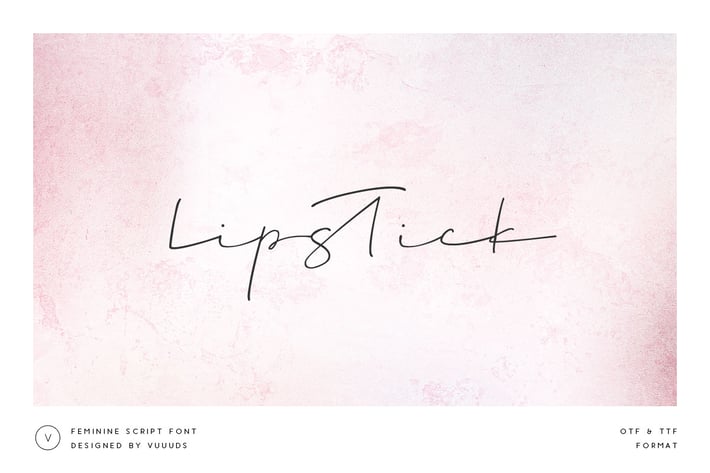
Lisptick Font
Lipstick is modern feminine font, every single letters have been carefully crafted to make your text looks beautiful. With modern script style this font will perfect for many different project ex: Instagram post, signature logo, watermark, quote, blog header, poster, wedding, branding, logo, fashion, apparel, letter, invitation, stationery, etc.
Ligature & alternate glyph: a ab af ah ak al all at att bl ch ck db eb eh ek el ell em en et ett es ft g gh i ib if ih ik il ill is it itt nt o ob of oh ok ol ot pl pp s sh sk sl ss st u ub uf uh uk ul ut wh
Foreign languages support: ÀÁÂÃÄÅÆÇÈÉÊËÌÍÎÏÐÑÒÓÔÕÖØÙÚÛÜÝßàáâãäåæçèéêëìíîïðñòóôõöøùúûüýÿ